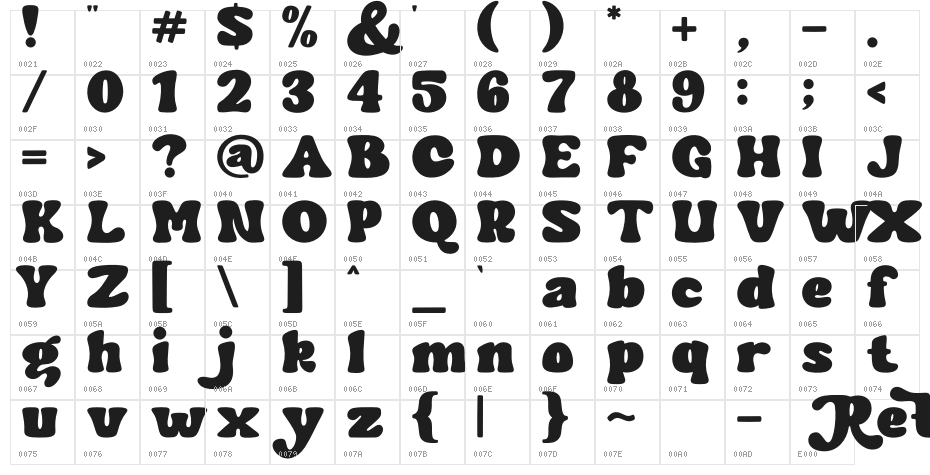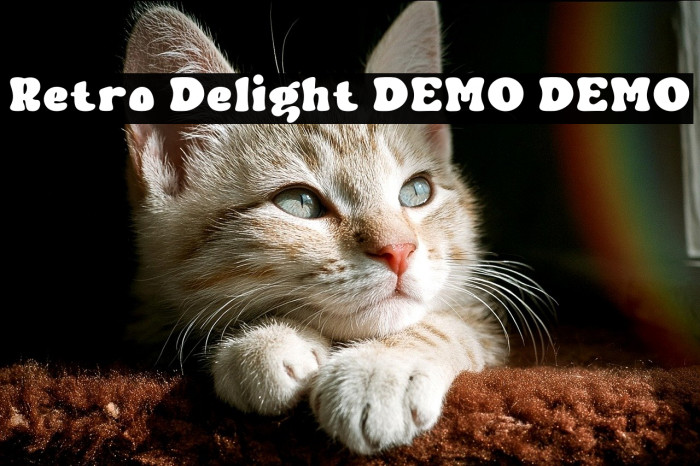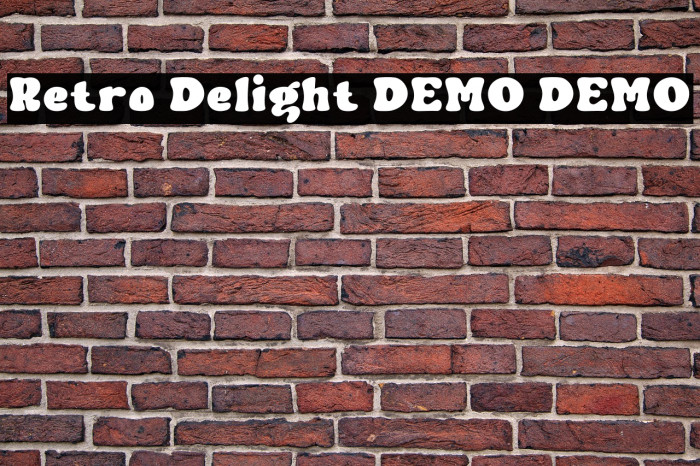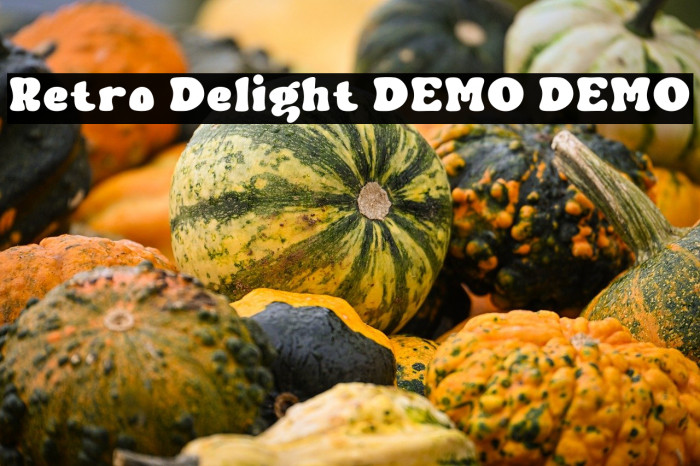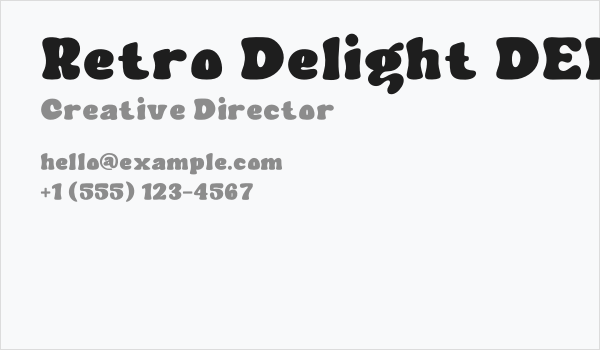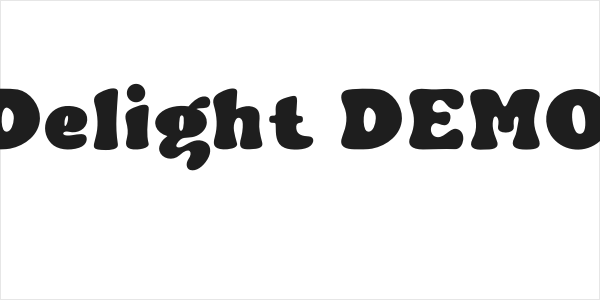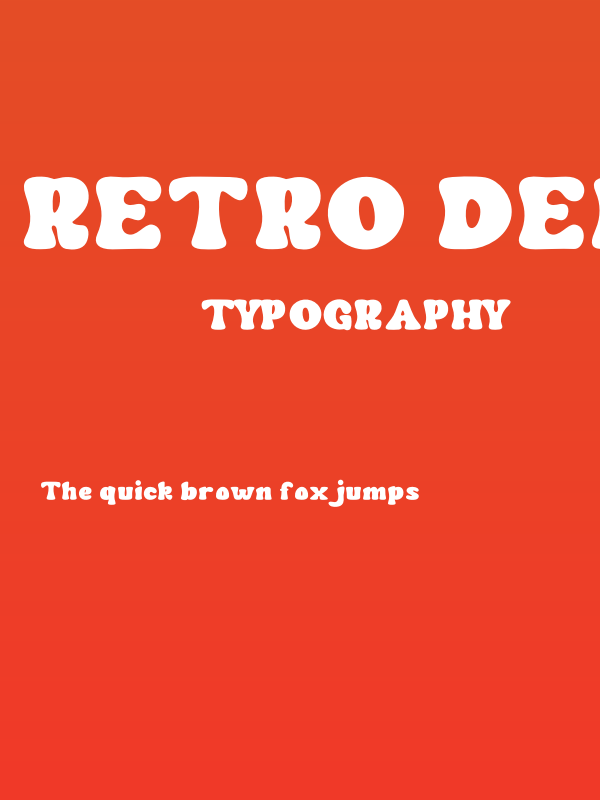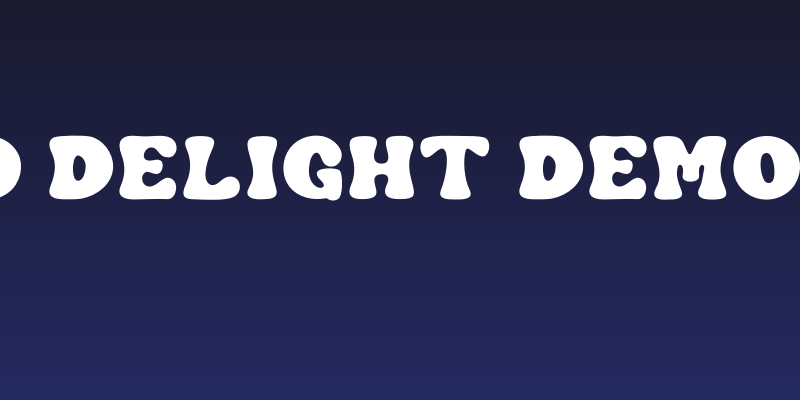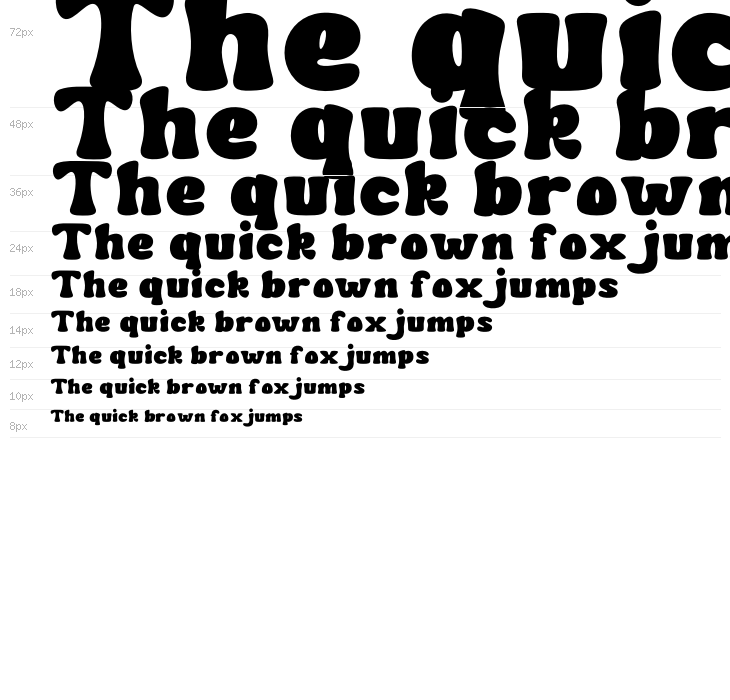
Retro Delight DEMO DEMO Font
Retro Delight DEMO DEMO Description
This font exudes a playful and retro vibe, characterized by its bold and rounded letterforms. The thick strokes and smooth curves give it a bubbly appearance, reminiscent of vintage signage and advertisements. The uppercase and lowercase letters maintain a consistent style, with a slightly exaggerated width that enhances its whimsical charm. The numbers and special characters follow the same design principles, ensuring a cohesive look across all elements. This font's unique style makes it stand out, perfect for projects that require a touch of nostalgia and fun.
| Proposed Projects | Ideal for vintage-themed posters, retro branding, playful packaging designs, and eye-catching headlines. |